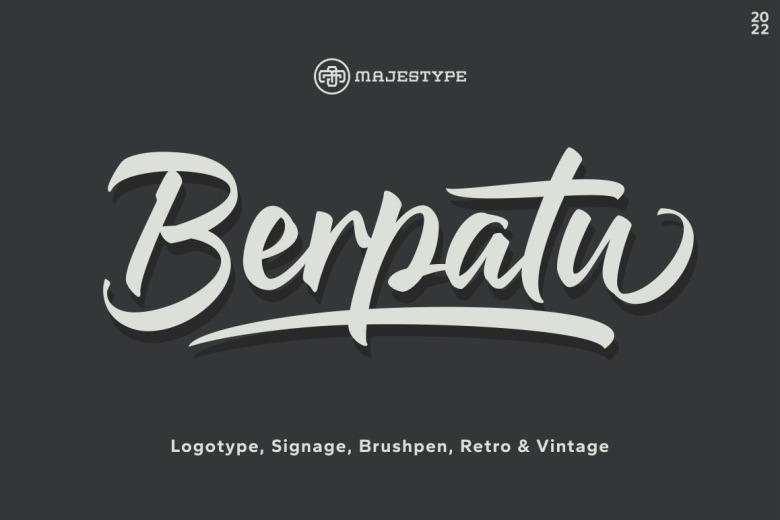
Berpatu Font
Berpatu, a brush lettering font inspired by the signature retro and vintage designs found on the street’s shop windows and billboards. Created with a brush pen with passion. For window shop writes, sticker signage, and labels, use this beautiful font.
This font has a unique retro and vintage flavor. Contains 300+ glyphs. Support OpenType features like ligature, context alternate, and swash variant. With this, you’ll have a lot of fun creating great designs. Signage, display, titles, poster, tees, logos, ads, billboard, packaging, and other presentations are all ideal.